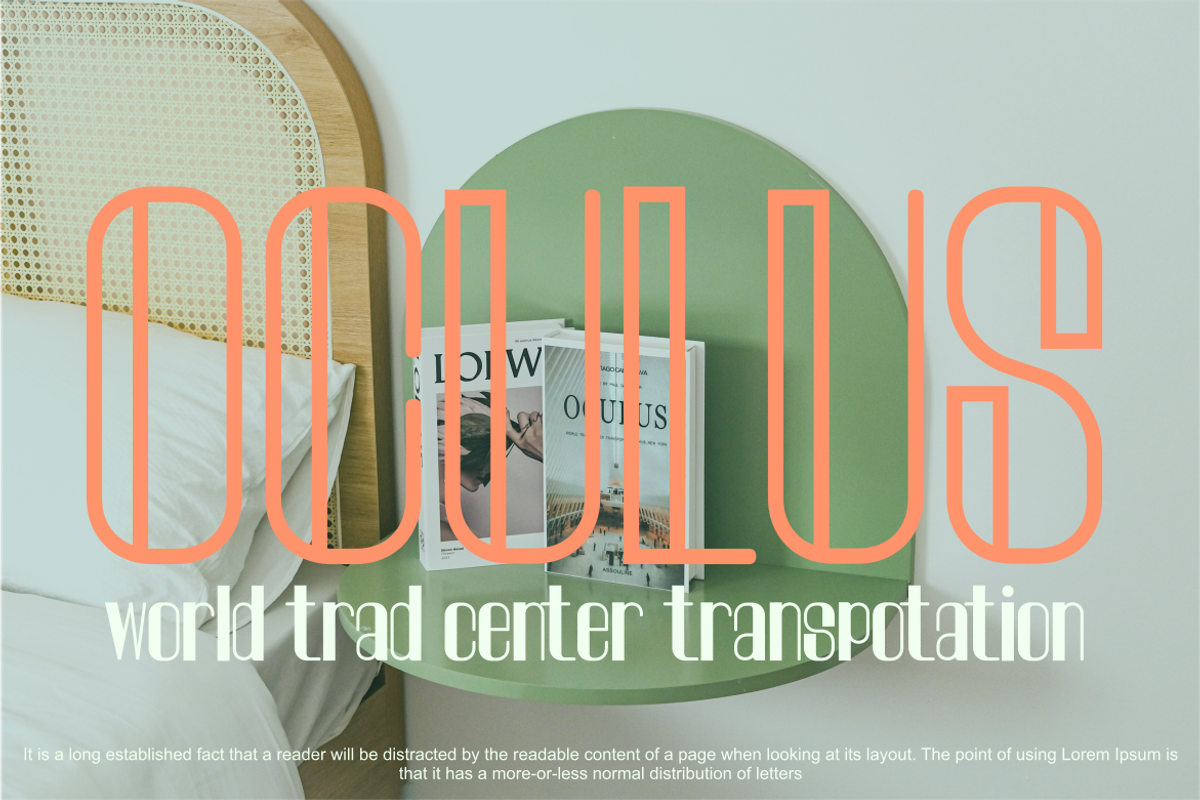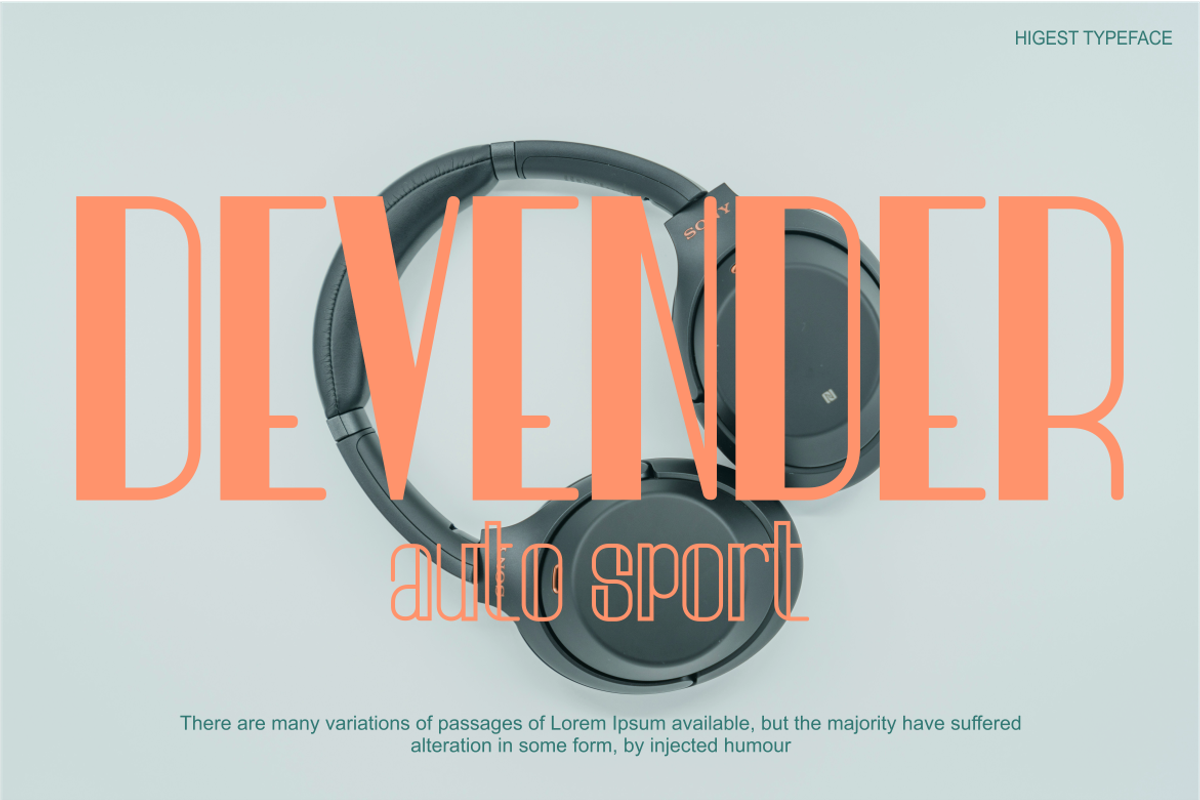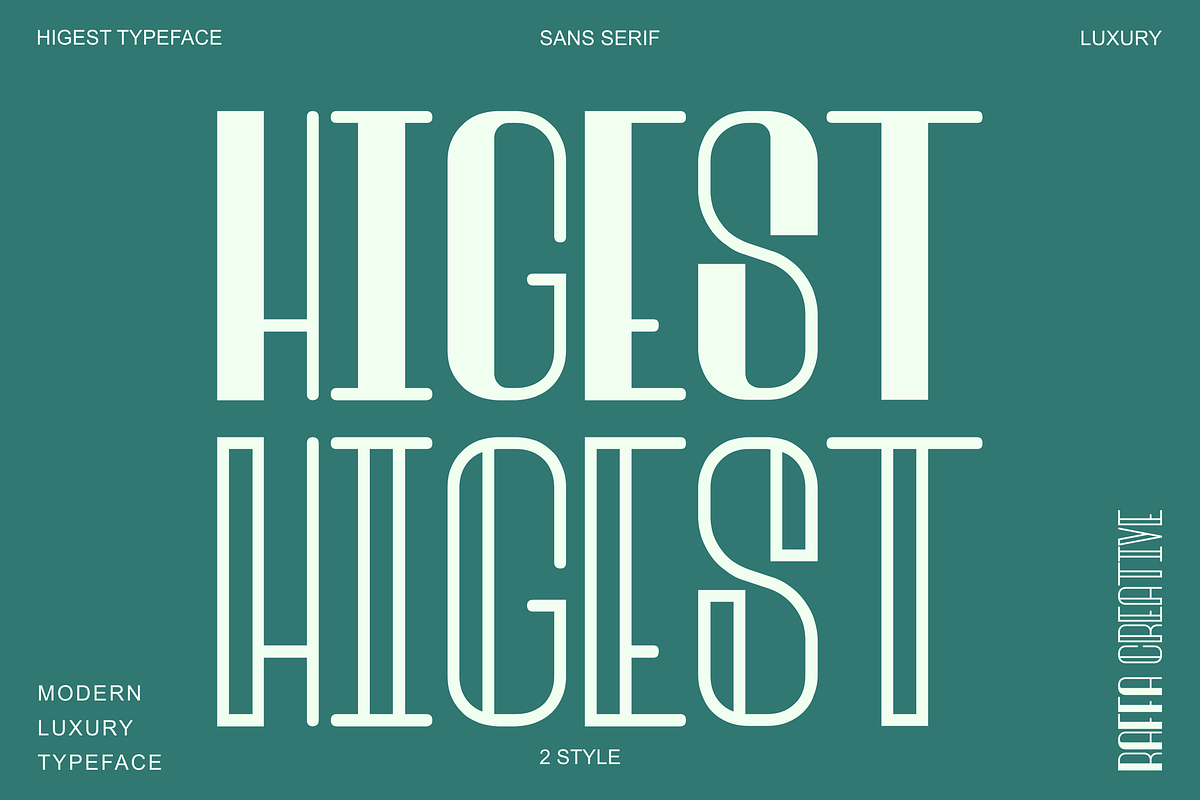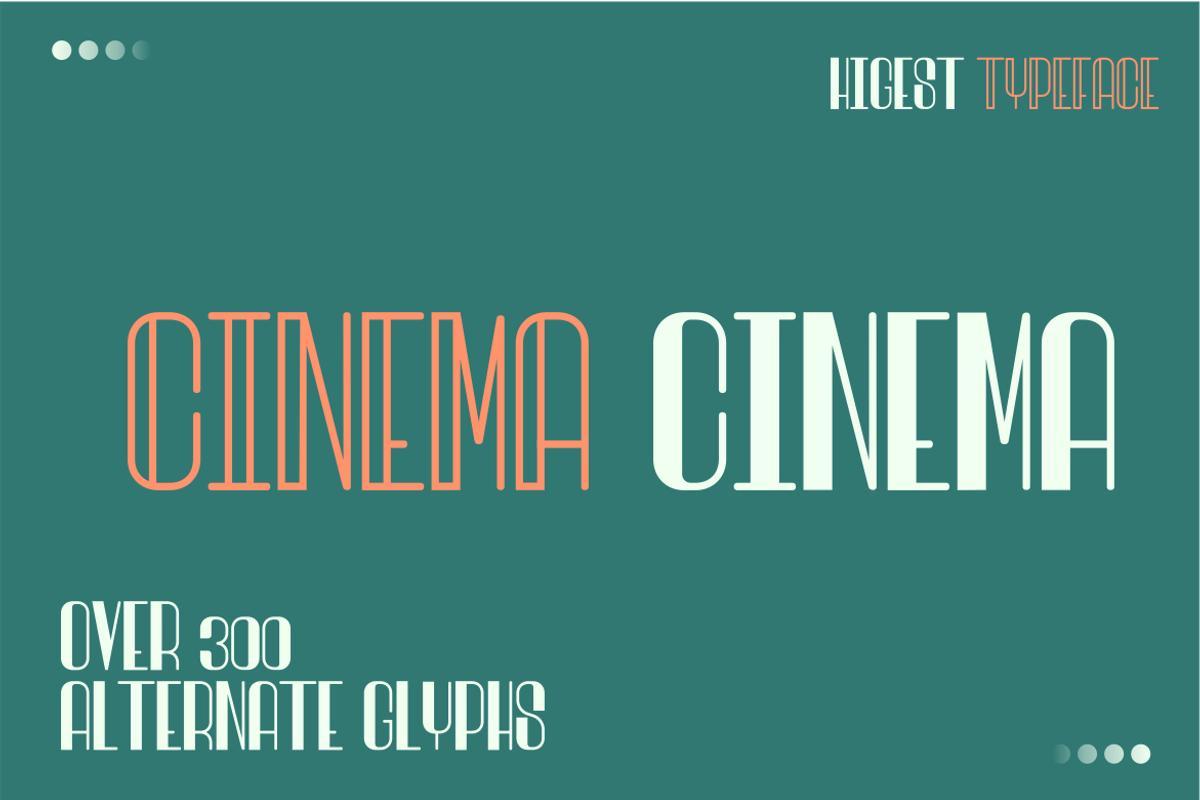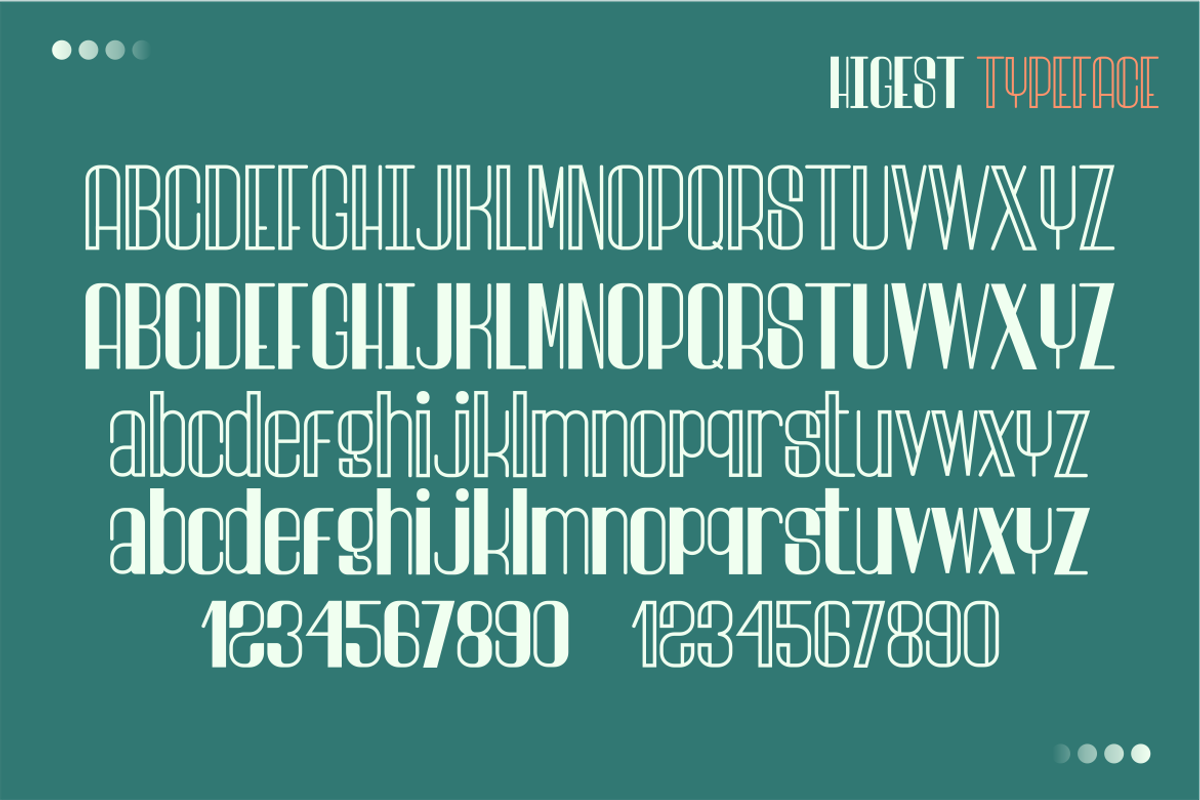
Higest
Highest Font is a font with a modern and elegant design, offering a bold and stylish look. Designed to give a professional yet attractive impression, this font is suitable for use in various design needs, from branding, posters, to websites. With clean lines and balanced letter proportions, Highest provides clear reading even at small sizes. The letter characters are sharp, with a contemporary touch that gives a premium and strong impression. Suitable for large titles or text that wants to attract attention, this font also includes a variety of letter alternates that allow flexibility in style and design expression.